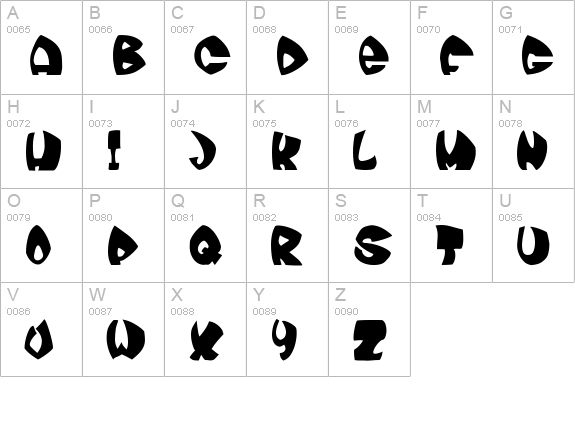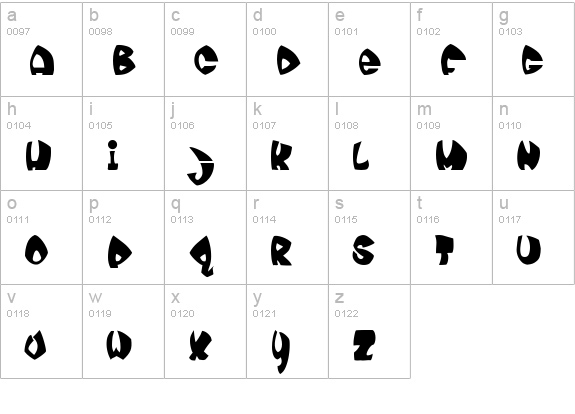
moonie Font Details
Moonie font is a charming and quirky typeface that will add a touch of whimsy to any design project. Its playful and rounded characters exude a sense of fun and creativity, making it perfect for a variety of applications, from branding to product packaging to social media graphics. What sets Moonie font apart is not just its unique design, but also the fact that it is completely free to download. That's right - you can get your hands on this delightful font without spending a dime. Simply head over to FontsMarket.com to freely download Moonie font and start incorporating its cheerful personality into your designs today. Its versatility and eye-catching appeal make it a must-have addition to any designer's toolkit. Let Moonie font bring a touch of joy and originality to your next creative project!